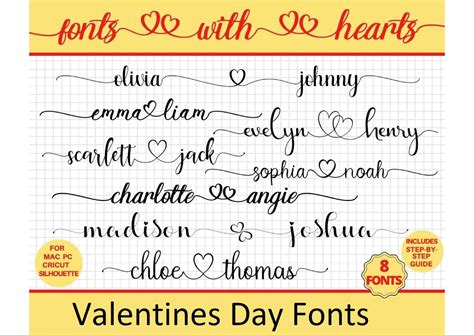
In the vast world of typography, there are countless fonts that cater to various design needs, from sleek and modern to classic and elegant. Among these, Fonts With Hearts stand out as a unique and expressive category, adding a touch of warmth and personality to any design project. These fonts are not just about aesthetics; they convey emotions and sentiments that can make a significant impact on the viewer. Whether you're designing a romantic invitation, a heartfelt greeting card, or a playful social media post, Fonts With Hearts can elevate your design to new heights.
Understanding Fonts With Hearts
Fonts With Hearts are a specialized category of typography that incorporate heart symbols or heart-shaped elements into their design. These fonts are often used to convey love, affection, and positivity. They can be found in various styles, from hand-drawn and playful to elegant and sophisticated. The versatility of Fonts With Hearts makes them suitable for a wide range of applications, from personal projects to commercial designs.
Types of Fonts With Hearts
There are several types of Fonts With Hearts, each with its unique characteristics and uses. Here are some of the most popular categories:
- Hand-Drawn Hearts Fonts: These fonts have a casual, hand-drawn appearance, making them perfect for informal and playful designs. They often feature irregular lines and a more organic feel.
- Elegant Hearts Fonts: These fonts are characterized by their refined and sophisticated design. They are ideal for formal invitations, wedding announcements, and other high-end projects.
- Playful Hearts Fonts: These fonts are fun and whimsical, often used in children's designs, greeting cards, and social media posts. They can add a playful touch to any project.
- Modern Hearts Fonts: These fonts have a clean, contemporary look, making them suitable for modern designs, branding, and digital media.
Popular Fonts With Hearts
Here are some popular Fonts With Hearts that you might consider for your next project:
| Font Name | Style | Use Cases |
| Love Story | Elegant | Wedding invitations, romantic cards |
| Heartfelt | Hand-Drawn | Personal projects, greeting cards |
| Sweetheart | Playful | Children's designs, social media posts |
| Modern Love | Modern | Branding, digital media |
How to Use Fonts With Hearts
Using Fonts With Hearts in your designs can add a unique and emotional touch. Here are some steps to help you get started:
- Choose the Right Font: Select a font that matches the tone and style of your project. For example, an elegant heart font would be perfect for a wedding invitation, while a playful font would be ideal for a children's birthday party invitation.
- Pair with Complementary Fonts: Fonts With Hearts can be paired with other fonts to create a balanced design. Choose complementary fonts that enhance the overall look and feel of your project.
- Use Appropriately: Fonts With Hearts are best used sparingly to avoid overwhelming the design. Use them for headings, key phrases, or as accents to draw attention to important elements.
- Adjust Size and Color: Experiment with different sizes and colors to make your heart font stand out. Larger sizes and vibrant colors can create a bold impact, while smaller sizes and softer colors can add a subtle touch.
By following these steps, you can effectively incorporate Fonts With Hearts into your designs and create visually appealing and emotionally resonant projects.
Design Ideas Using Fonts With Hearts
Here are some design ideas that utilize Fonts With Hearts to inspire your next project:
- Romantic Invitations: Use elegant heart fonts for wedding invitations, anniversary cards, or romantic dinner invitations. Pair them with soft colors and floral elements for a cohesive look.
- Greeting Cards: Create heartfelt greeting cards for birthdays, anniversaries, or special occasions. Use playful heart fonts to convey warmth and affection.
- Social Media Posts: Add a touch of love to your social media posts with heart fonts. Use them for quotes, announcements, or special messages to engage your audience.
- Branding: Incorporate heart fonts into your branding to convey a sense of love and care. Use them in logos, packaging, or marketing materials to create a memorable brand identity.
These ideas can help you explore the versatility of Fonts With Hearts and inspire you to create unique and impactful designs.
Tips for Choosing the Perfect Heart Font
Choosing the right heart font can make a significant difference in your design. Here are some tips to help you select the perfect font:
- Consider the Tone: Think about the emotional tone you want to convey. Elegant heart fonts are great for formal occasions, while playful fonts are perfect for casual and fun designs.
- Match the Style: Ensure the font style aligns with the overall design aesthetic. For example, a modern heart font would work well with a contemporary design, while a hand-drawn font would complement a more rustic look.